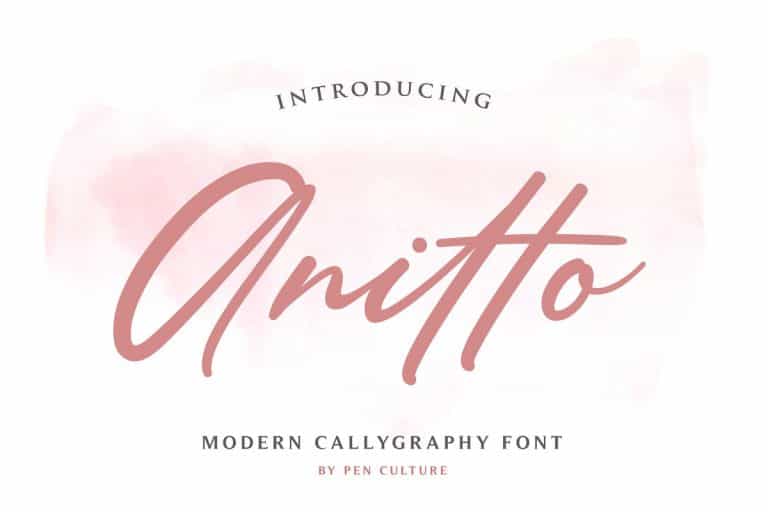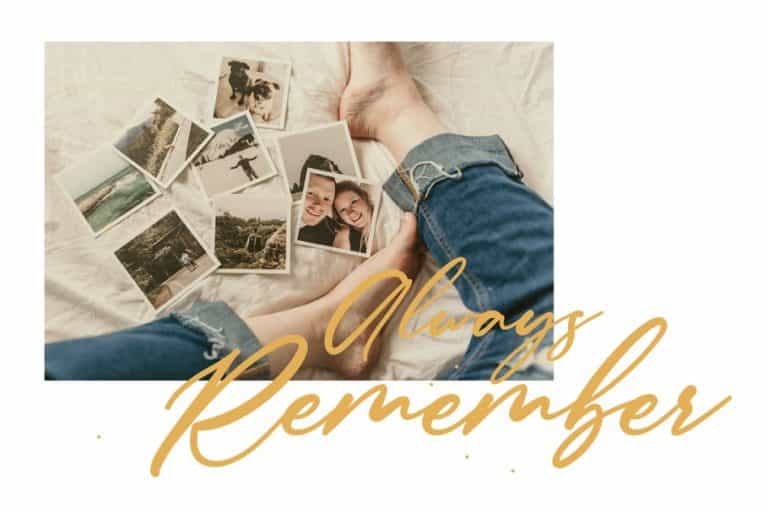
Discover Anitto Calligraphy Font, part of the Brush Calligraphy Handwritten collection—a versatile and unique font perfect for adding a personal touch to your projects. Download it for free and enjoy crafting designs with style, from invitations to social media posts. This font is available exclusively for personal use, giving you the freedom to create without limits. Unlock your creativity with Anitto Calligraphy Font today!
Hello everyone, Introducing the lovely new Anitto Calligraphy Font! Anitto Calligraphy Font is inspired by the beauty of Sunday morning in village. Anitto Calligraphy Font font has a smooth and beautiful curve so would be perfect for all types of design projects one can possibly think of including branding, wedding design, invitations, website design, Instagram stories, lettering book design, and much more.